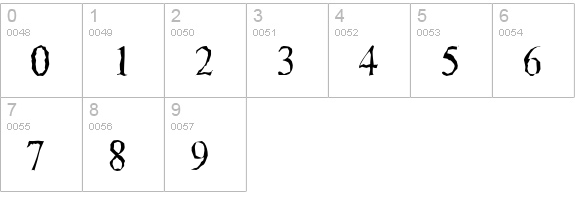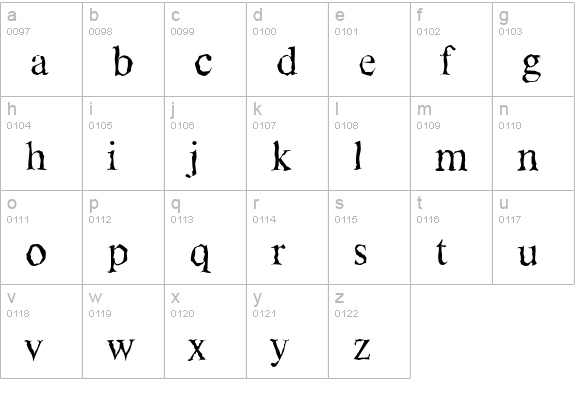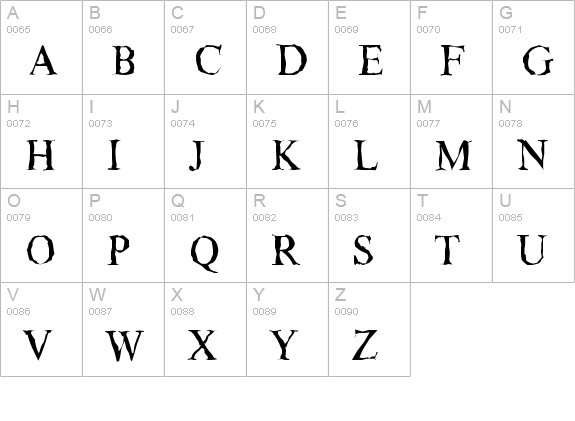
ThamesRandom-Regular Font Details
ThamesRandom-Regular is the standard, neutral variant in the ThamesRandom typeface family \xE2\x80\x94 well suited to general body text, paragraphs, and standard typographic work.
ThamesRandom-Regular font is a modern and stylish typeface that exudes a sense of creativity and uniqueness. With its playful yet sophisticated design, this font is perfect for adding a touch of personality to your projects. The irregular and random style of the letters gives a whimsical and artistic feel to any text. This font is freely available to download at FontsMarket.com, making it a versatile and accessible option for designers, creatives, and anyone looking to elevate their work with a touch of flair. Whether you're designing a logo, creating a poster, or crafting a social media graphic, ThamesRandom-Regular font is sure to make a statement and leave a lasting impression. Add a touch of individuality and creativity to your designs with this free and charming font.